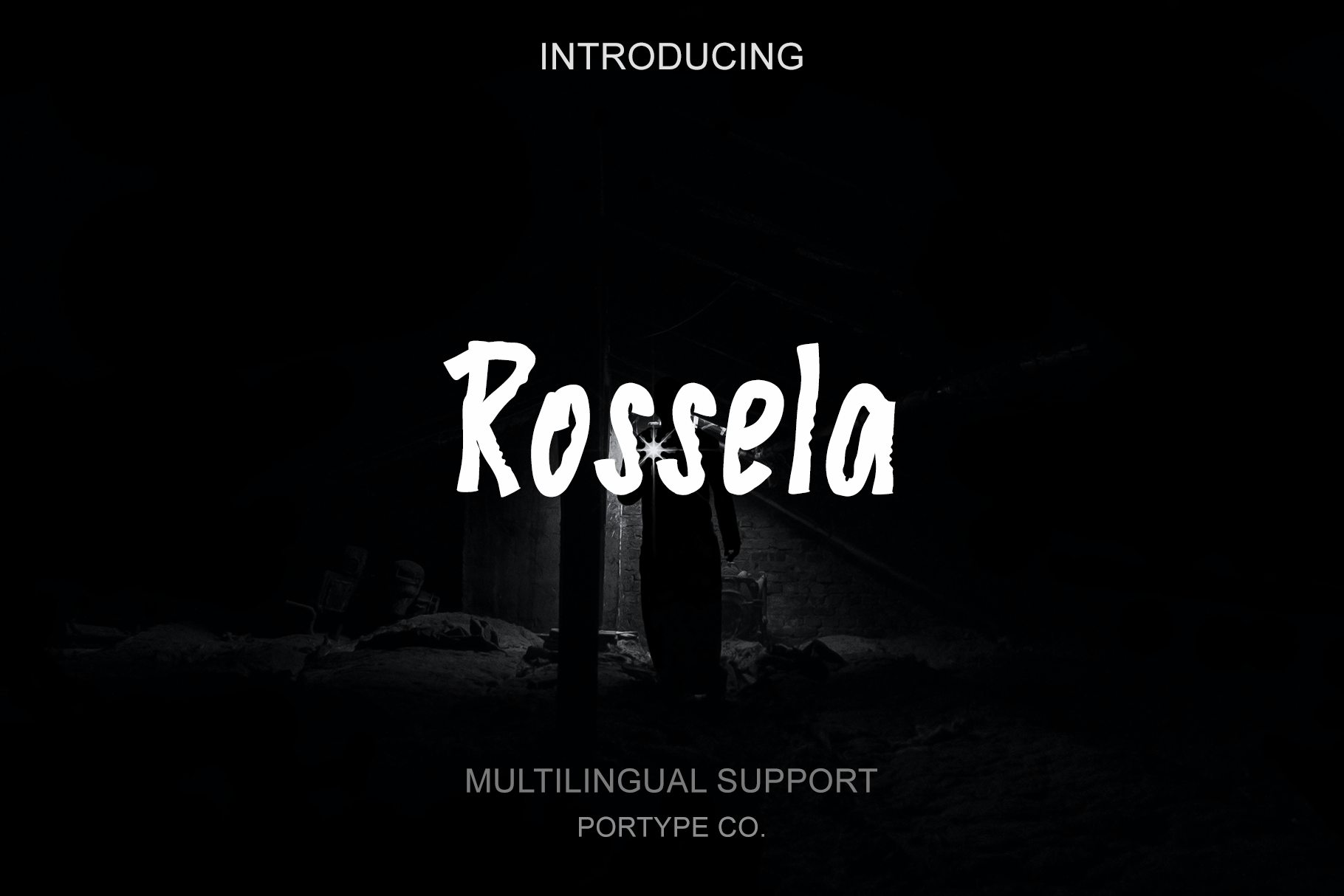
Rossela font - Multilingual Support
Rossela is a beautiful font. Inspired by dance with a stunning performances . The font looks casual and playful. It's perfect any musical-themed, jazzy design. Suitable for any design needs, branding, urban design, modern advertising design, Book/Cover Title, special events, adventures, headlines, clothing and more.